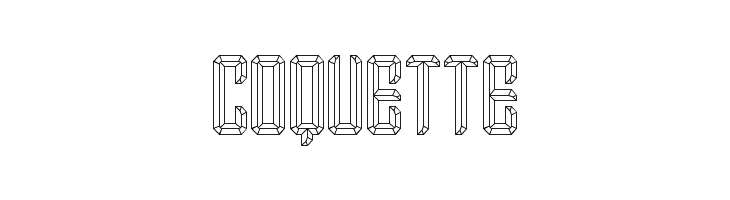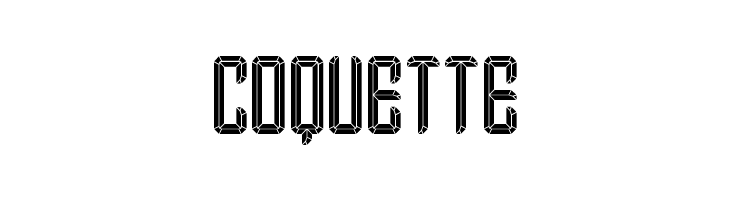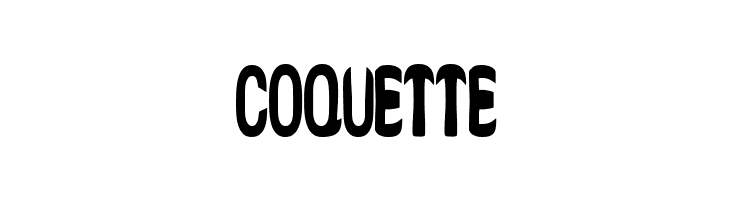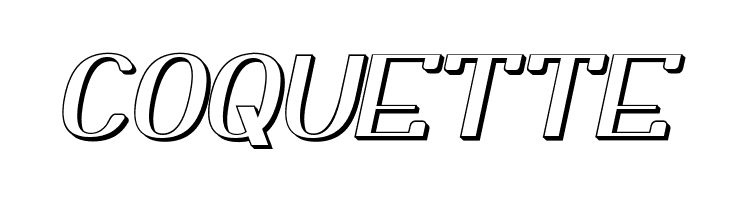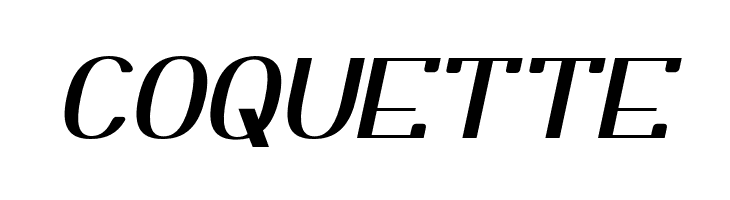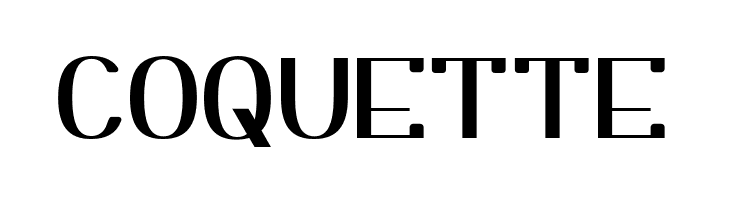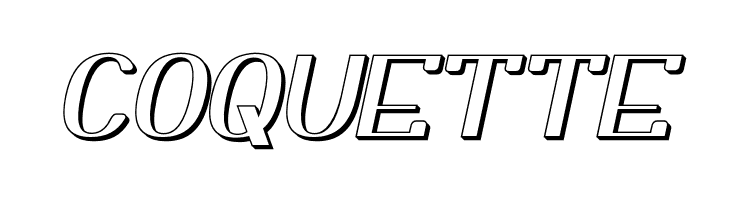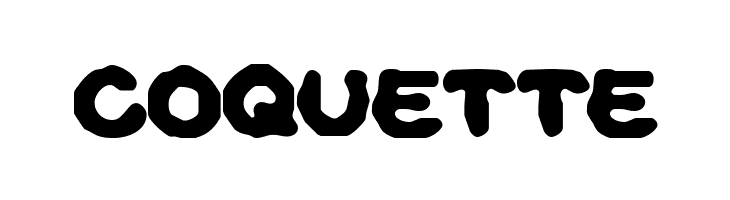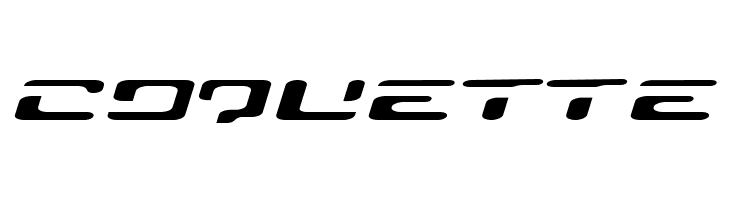
A 3D italic font with outlined characters and a modern, dynamic style.
A modern, high-contrast font with geometric and organic elements.
A modern italic font with elegant slant and subtle stroke contrast.
A 3D italic font with outlined characters and a modern, dynamic style.
A playful, bold font with a cartoon-like, bubbly style.
A bold, geometric font with a modern and industrial feel.
A bold, geometric font with a three-dimensional effect and sharp, angular lines.
A decorative, geometric font with a 3D, crystal-like design.